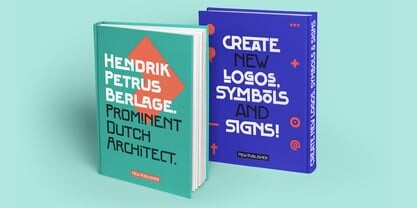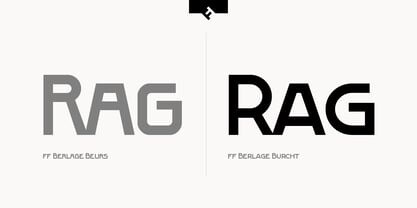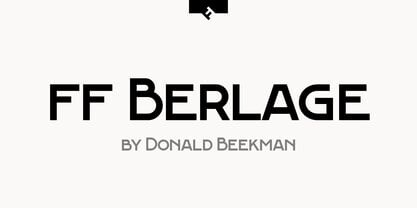
FF Berlage Burcht Font Family
FF Berlage Burcht Font Family, FF Berlage started as a research project about the typography of the prominent Dutch architect Hendrik Pieter Berlage (1856 1935). Donald Beekman based the design on a great number of sources, but mainly lettering found in two of Berlage s most quintessential buildings, the Amsterdam Commodities Exchange building (called Beurs van Berlage), and the ANDB building for the Amsterdam diamond cutters union (called De Burcht). Berlage is considered the father of modern architecture in The Netherlands due to his revolutionary theories on architecture and design, that would greatly influence many Dutch architect groups, like the Amsterdam School and De Stijl.